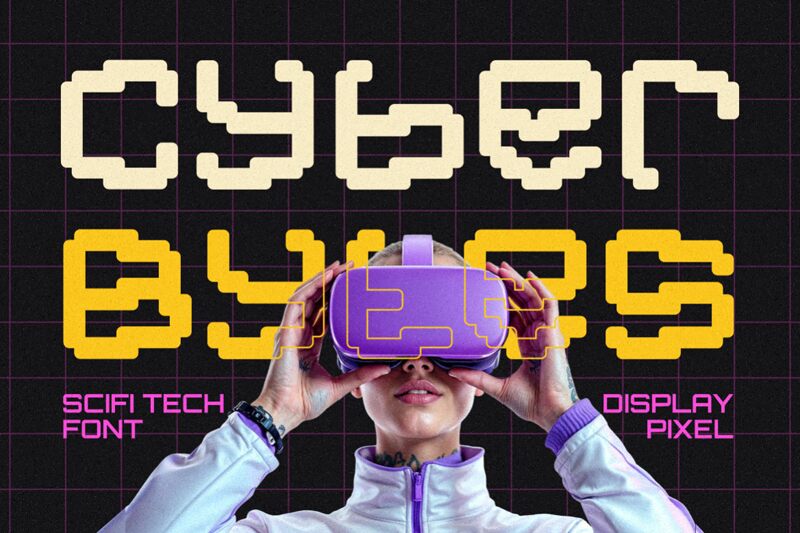
Cyber Bytes font family by PutraCetol Studio is a free techno typeface that serves as an excellent option for those seeking a modern and digital aesthetic. It is a techno-style font, a feature that contributes to its clean, neat, and proportional structure. The font is quite simple, but its legibility is not sacrificed thanks to its great proportions.
The font is suitable in designing banners, social media posts, posters, flyers, and stickers. Wherever applied, it is sure to catch attention. Present your online magazine, blog, and newspaper headlines with it. If your work requires you to display texts in large sizes, Cyber Bytes will easily become your new favorite.